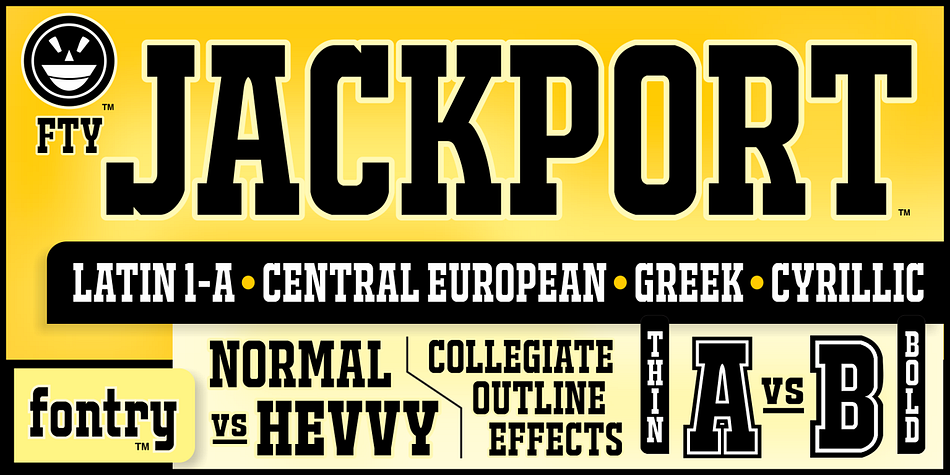
FTY JACKPORT is a western and display slab font family. This typeface has ten styles and was published by The Fontry.
The FTY Jackport family is an athletic font disguised as an Old-West font. Or is it a Western font masquerading as a sport font while trying to meet the demands of a collegiate-themed typeface? You know the “type” I’m talking about. Ivy League? College outline? Yeah, that kind of sport font.
With contours and layering options, and for the detail-minded, a thick outline versus a thin outline. And language support too. Central European, Greek, Cyrillic. Might as well include a few OpenType features while we’re at it. And an uppercase German Eszett. And a proper Serbian lowercase be. Wow.
Did I mention the stance? Not too wide. Not too condensed. Somewhere right in the middle. All perfectly fitted for you next sport outing. Or Western outing. Or rodeo. Or just whatever. There’s even a heavy version of the regular version if you need such a version. The Jackport family covers all the angles and is very versatile, and best of all, it’s crazy user-friendly! Enjoy!